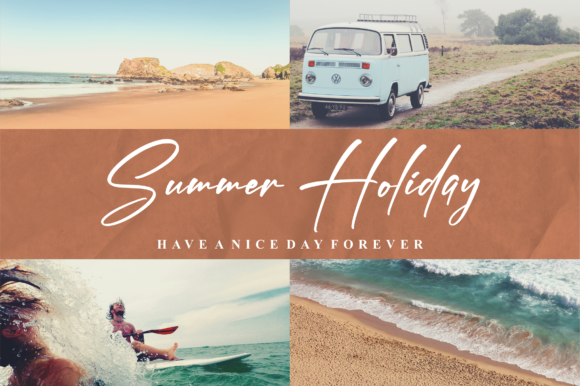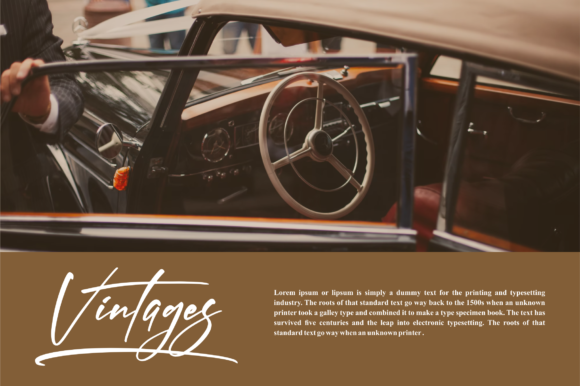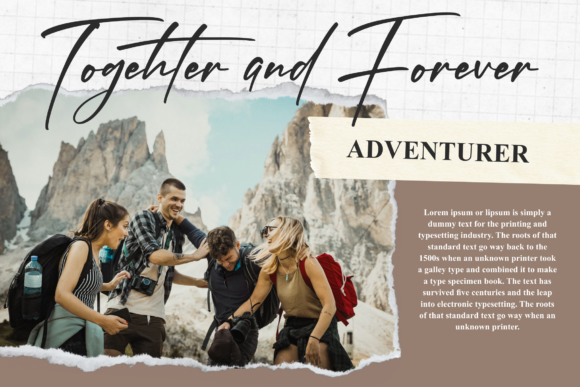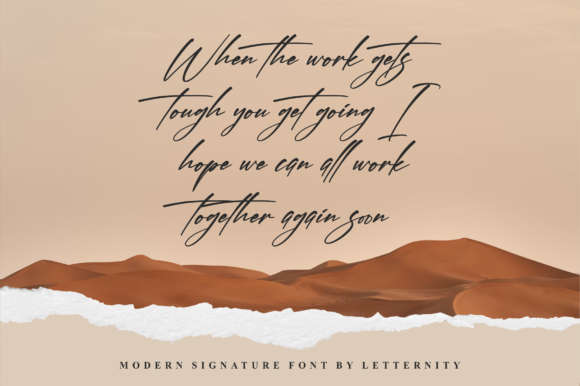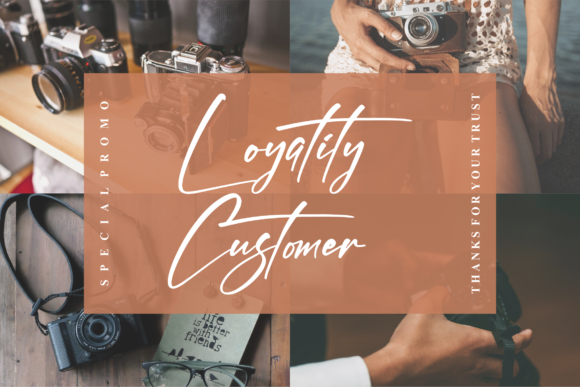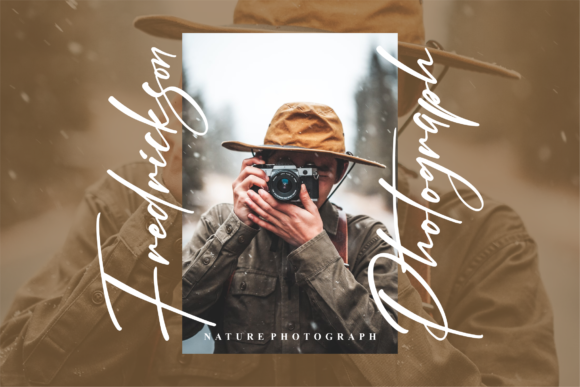
Discover the Joy of Banetigra Font
Have you ever been browsing through a beautiful wedding invitation or a lovely greeting card and thought, “I wish I could recreate this level of elegance and charm in my own designs?” That’s exactly what happens when you stumble upon the perfect font – it sparks creativity and sets your imagination ablaze. For designers and creatives, finding the right font can be a game-changer, and that’s where the Banetigra Font comes in.
Banetigra Font is a sweet and cursive handwritten font designed to add a touch of joy and romance to your projects. Its gentle curves and playful feel make it perfect for a wide range of design ideas, from wedding invitations to greeting cards, and even social media posts.
Whether you’re a seasoned designer or just starting out, the Banetigra Font is a valuable addition to your toolkit. Its versatility and charm make it an ideal choice for adding a personal touch to your designs and making them truly special.
Banetigra Font Key Features
- Font Family: Banetigra Font is a unique, hand-drawn font family with 6 different styles, including Regular, Italic, Bold, Bold Italic, Light, and Light Italic.
- Character Set: Includes a wide range of characters, including uppercase and lowercase letters, numbers, punctuation marks, and special characters.
- Unique Characteristics: Features intricate, hand-drawn details and subtle texture, giving it a distinctive and elegant appearance suitable for various design applications, including branding, advertising, and editorial content.
Banetigra Font Review
As a designer, I was excited to dive into the Banetigra font. Here’s my honest take on what works and what doesn’t.
- Unique flair**: Banetigra has a distinct, playful feel that sets it apart from more common fonts.
- Good legibility**: The font is clear and easy to read, even at smaller sizes.
- Highly customizable**: Banetigra comes with a range of weights and styles, making it easy to adapt to different design needs.
- Not suitable for formal texts**: Banetigra’s quirky feel may not be the best choice for formal documents, like resumes or academic papers.
- Can be overwhelming**: The font’s bold, playful personality can be overwhelming if used too extensively or in the wrong context.
- Limited language support**: Banetigra may not support all languages or character sets, which could be a limitation for global design projects.
Banetigra is a solid choice for designers looking to add some personality to their work. While it may not be the best fit for every project, it’s a great option for those seeking a unique, playful feel. With careful use and consideration of its limitations, Banetigra can be a valuable addition to any designer’s toolkit.
Tips for Getting the Most Out of Banetigra Font
To get the most out of the Banetigra font, use it in bold or italic styles to add emphasis to your text. Experiment with different font sizes and colors to create visual interest. Use the font in combination with other design elements, such as images and graphics, to create a unique and engaging design.
The Banetigra font is ideal for use in creative projects, such as branding, packaging, and advertising. It’s also suitable for use in digital projects, such as websites and social media graphics. The font’s unique style and versatility make it a great choice for designers who want to add a touch of elegance and sophistication to their designs.